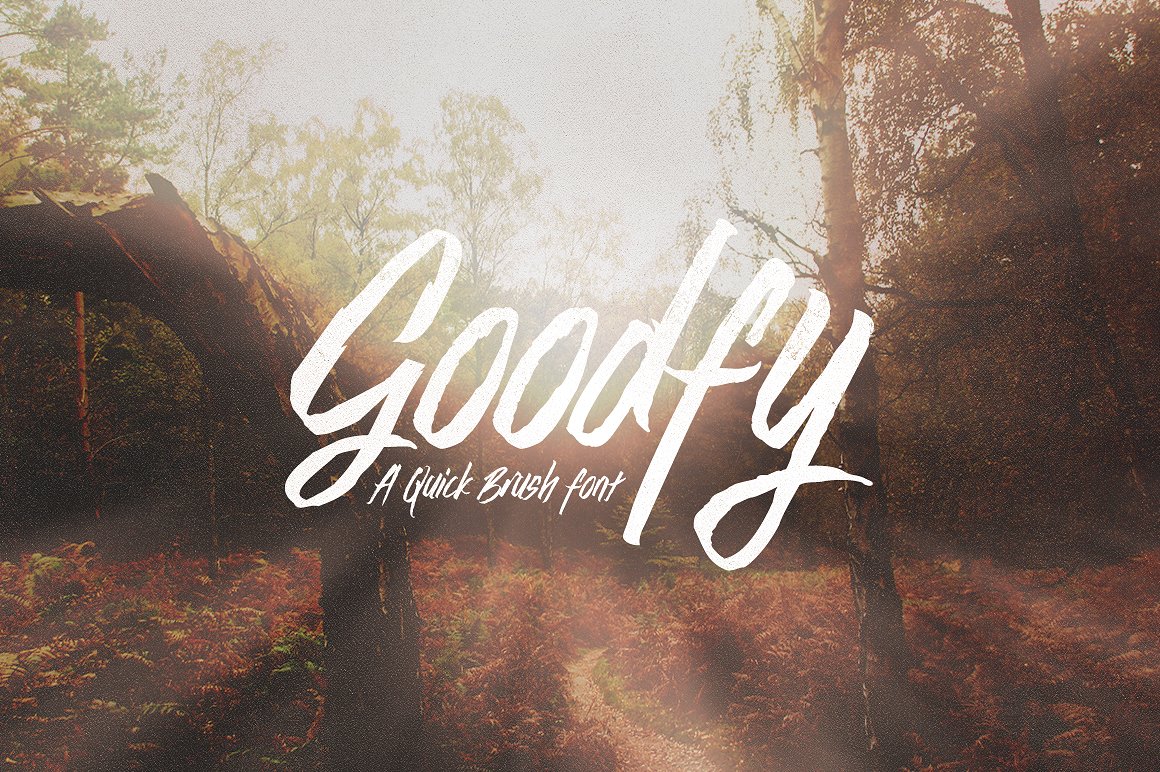
Goodfy Brush Font
Goody is a quick brush typeface based on the original lettering using brushpen. This font is designed for handwriting design, photography, t-shirt or everything who need rush feel and works good for Uppercase and Lowercase too.
| Classification: | Brush Fonts, Script Fonts |